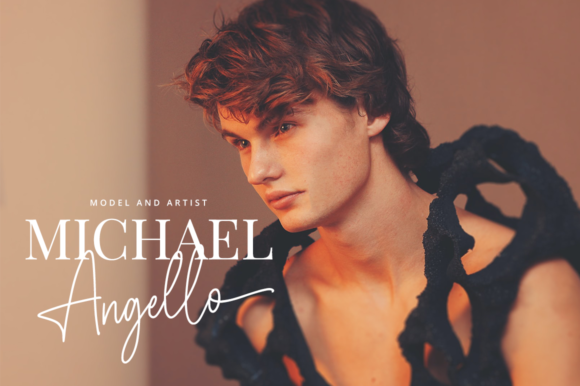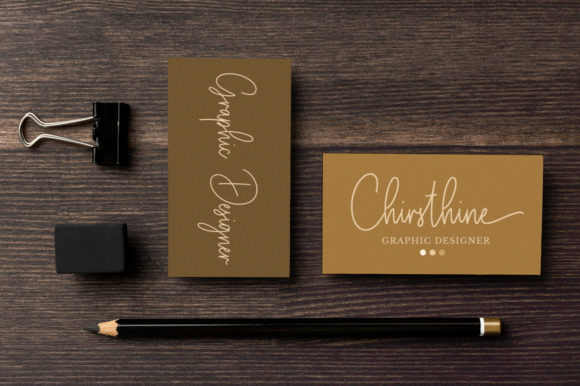
The Classic Signature Font
The Classic Signature is a modern signature font which is combining classic calligraphy with a modern style. Its dancing baseline will give your design an elegant and modern touch.
This font is PUA encoded which means you can access all of the cute glyphs and swashes with ease! It also features a wealth of special features including alternate glyphs and ligatures.